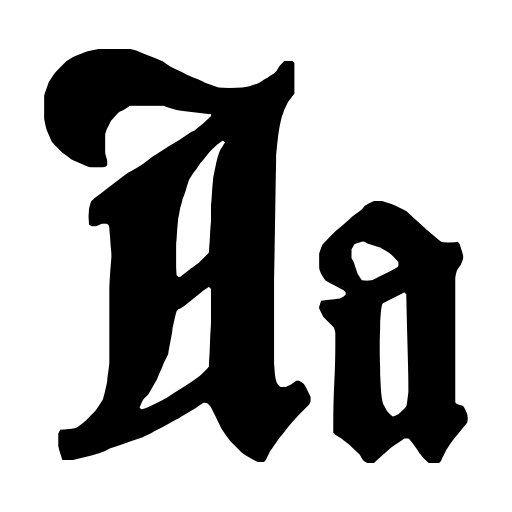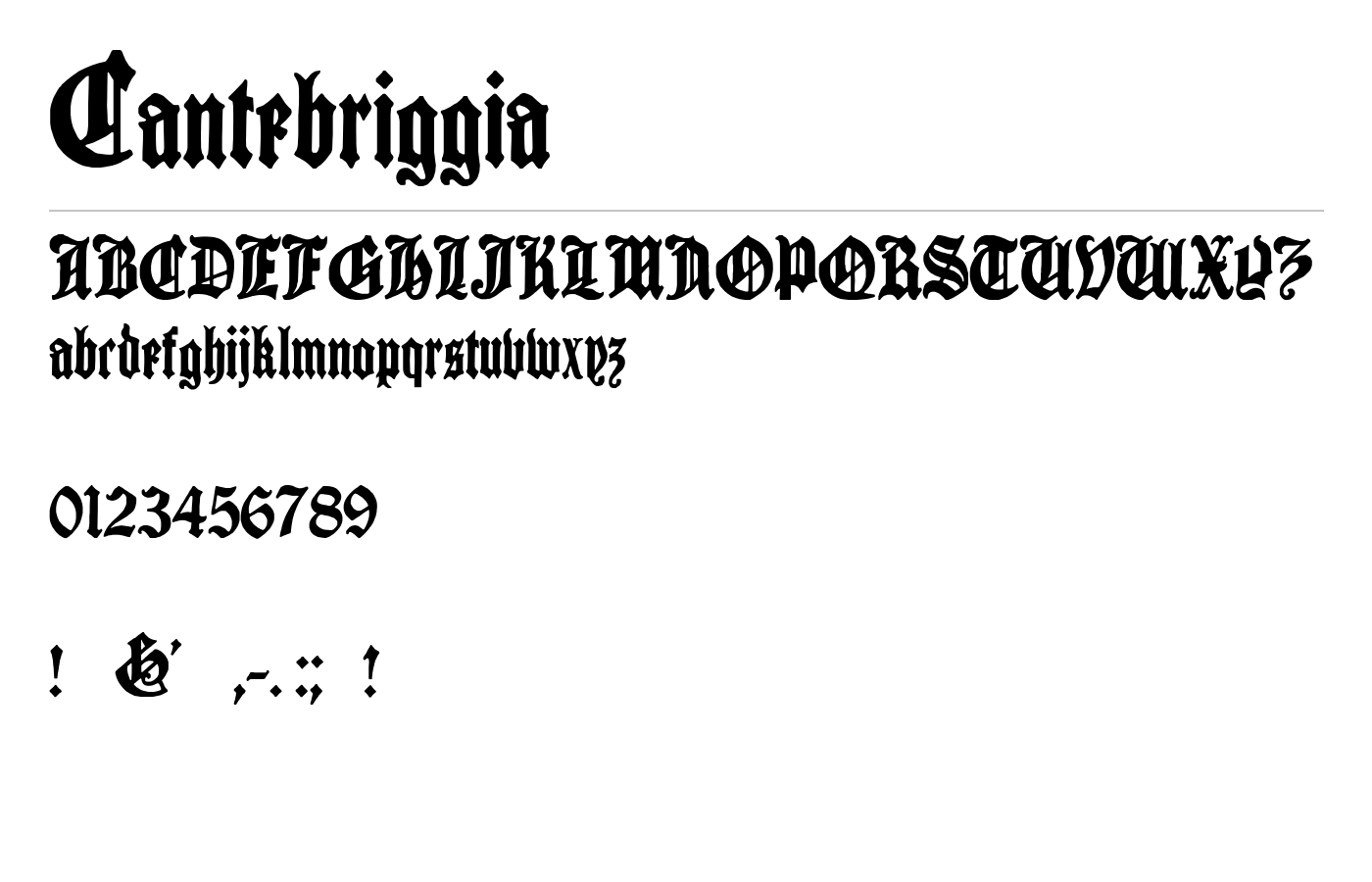
Cantebriggia is a bold blackletter font with strong, sharp strokes and a condensed, tall structure that recalls traditional Gothic calligraphy. Its dramatic, ornate letterforms evoke a historic, medieval feel, making it ideal for designs seeking a vintage or old-world character, such as logos, posters, or branding that wants to convey authority and tradition. This font works best in headlines or display uses where its distinctive style can stand out and make a powerful visual impact.
Cantebriggia Font
About Cantebriggia Font
| Font family | Cantebriggia Font |
| Release date | 2036-01-01 |
| Designer | PJL |